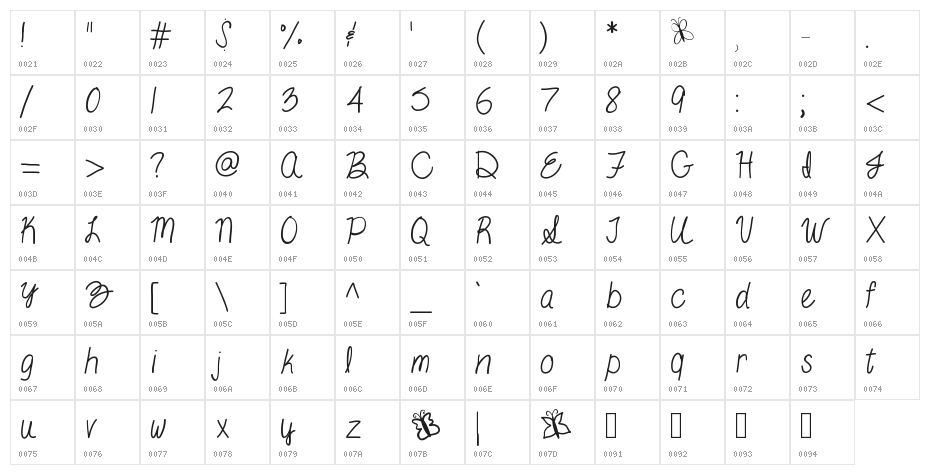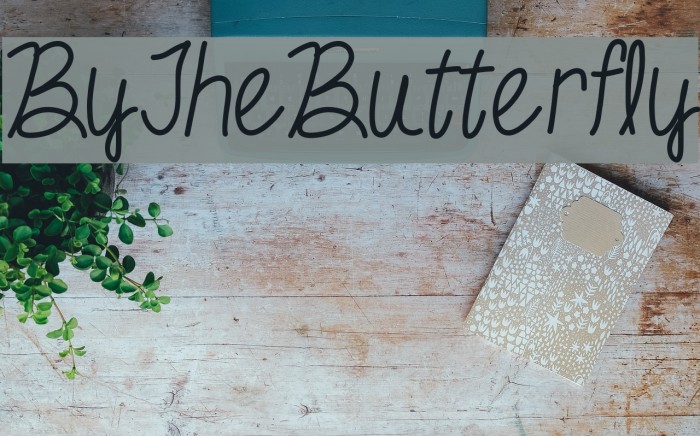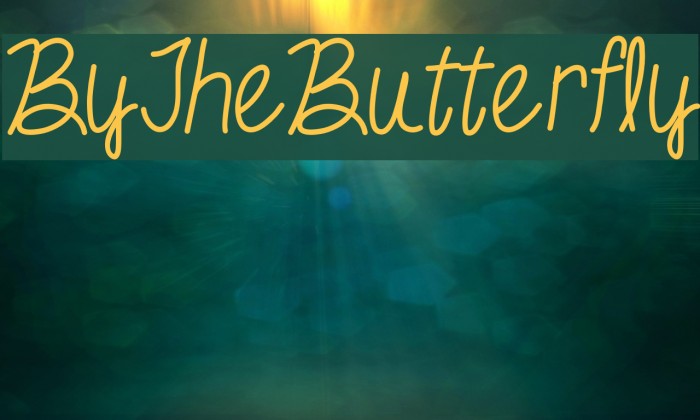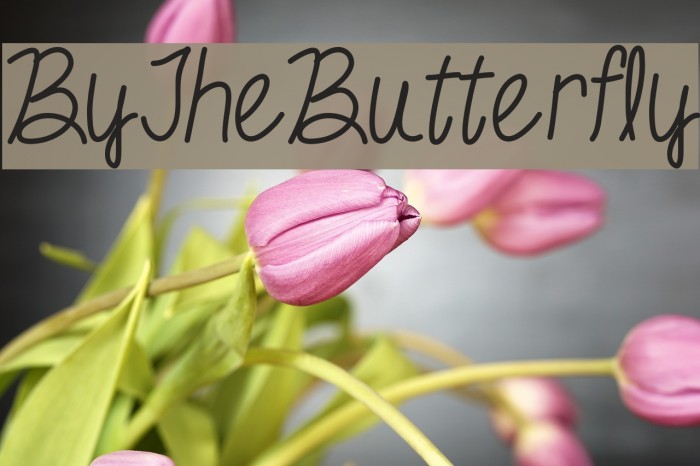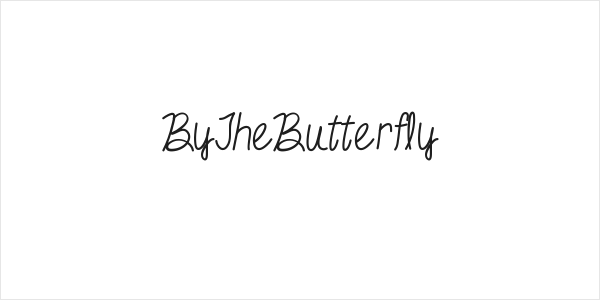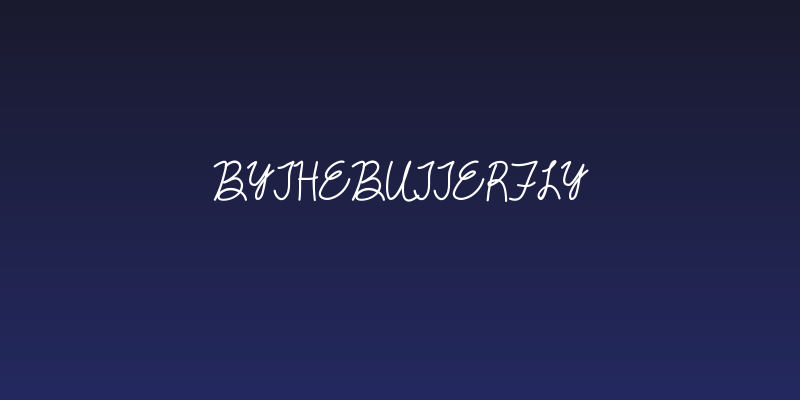
ByTheButterfly Font
ByTheButterfly Description
This font features a playful and whimsical handwritten style, characterized by its fluid and flowing letterforms. The uppercase letters exhibit a unique blend of curves and loops, giving them a lively and dynamic appearance. The lowercase letters maintain a consistent style, with smooth connections and a casual feel. The numerals are well-integrated into the overall design, maintaining the same playful aesthetic. Special characters are thoughtfully designed to match the font's overall style, ensuring versatility in various contexts. The font's informal and friendly appearance makes it suitable for creative and personal projects.
| Proposed Projects | Ideal for greeting cards, invitations, personal branding, and creative projects. |